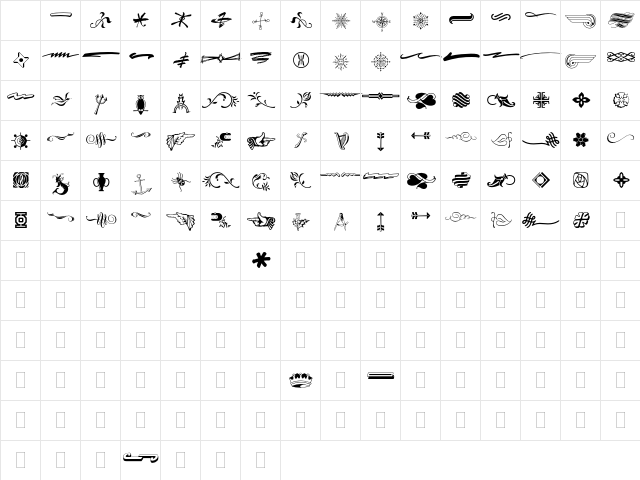
Complete Type Embellishments Three Plain glyph index. Displaying only characters natively supported by Type Embellishments Three Plain font.
Type Embellishments Three is a composed and adaptable typeface that performs quietly and consistently across a wide range of design contexts.